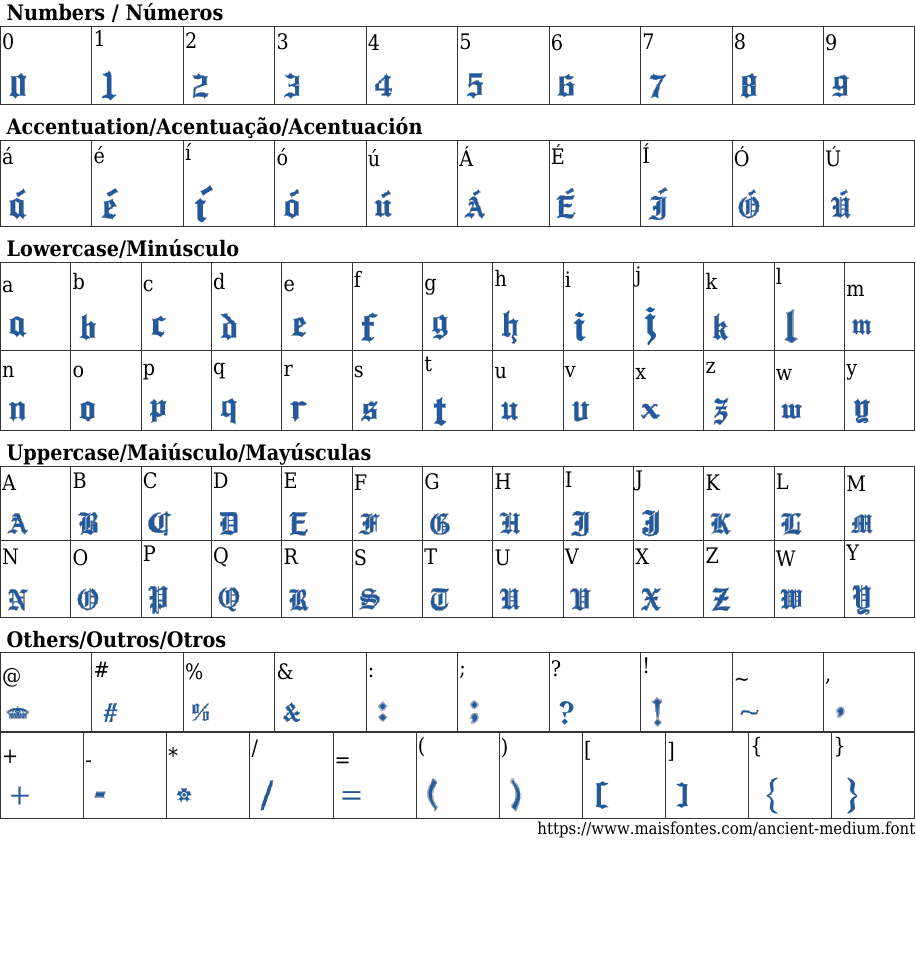
Ancient Medium Font
Ancient Medium Font - We have 22 free ancient, medium, text fonts to offer for direct downloading · 1001 fonts is your. Download and install the ancient medium font for free from ffonts.net. The original font is called cloister black. Perfect for giving your projects a touch of. Dive into the past with our free ancient, medium fonts. Ancient medium is a medium gothic, medieval font designed by jorge. Please buy the font to the original.
We have 22 free ancient, medium, text fonts to offer for direct downloading · 1001 fonts is your. Download and install the ancient medium font for free from ffonts.net. Perfect for giving your projects a touch of. Ancient medium is a medium gothic, medieval font designed by jorge. The original font is called cloister black. Please buy the font to the original. Dive into the past with our free ancient, medium fonts.
The original font is called cloister black. Download and install the ancient medium font for free from ffonts.net. Dive into the past with our free ancient, medium fonts. Ancient medium is a medium gothic, medieval font designed by jorge. We have 22 free ancient, medium, text fonts to offer for direct downloading · 1001 fonts is your. Perfect for giving your projects a touch of. Please buy the font to the original.
Ancient Medium free Font What Font Is
Download and install the ancient medium font for free from ffonts.net. We have 22 free ancient, medium, text fonts to offer for direct downloading · 1001 fonts is your. Perfect for giving your projects a touch of. Dive into the past with our free ancient, medium fonts. The original font is called cloister black.
Medium Font Font Canyon
Perfect for giving your projects a touch of. Dive into the past with our free ancient, medium fonts. Download and install the ancient medium font for free from ffonts.net. Please buy the font to the original. Ancient medium is a medium gothic, medieval font designed by jorge.
Download and install the ancient medium font for free from ffonts.net. Ancient medium is a medium gothic, medieval font designed by jorge. Please buy the font to the original. We have 22 free ancient, medium, text fonts to offer for direct downloading · 1001 fonts is your. Dive into the past with our free ancient, medium fonts.
Ancient Medium free Font What Font Is
The original font is called cloister black. We have 22 free ancient, medium, text fonts to offer for direct downloading · 1001 fonts is your. Dive into the past with our free ancient, medium fonts. Ancient medium is a medium gothic, medieval font designed by jorge. Perfect for giving your projects a touch of.
Ancient Medium font
Perfect for giving your projects a touch of. We have 22 free ancient, medium, text fonts to offer for direct downloading · 1001 fonts is your. The original font is called cloister black. Ancient medium is a medium gothic, medieval font designed by jorge. Dive into the past with our free ancient, medium fonts.
Ancient Medium Font Lettering alphabet, Lettering fonts, Writing fonts
We have 22 free ancient, medium, text fonts to offer for direct downloading · 1001 fonts is your. Ancient medium is a medium gothic, medieval font designed by jorge. Please buy the font to the original. Dive into the past with our free ancient, medium fonts. The original font is called cloister black.
Ancient Medium Free Font Download MaisFontes
We have 22 free ancient, medium, text fonts to offer for direct downloading · 1001 fonts is your. Please buy the font to the original. The original font is called cloister black. Dive into the past with our free ancient, medium fonts. Ancient medium is a medium gothic, medieval font designed by jorge.
Ancient Modern Tales font by Chequered Ink FontRiver
Download and install the ancient medium font for free from ffonts.net. Perfect for giving your projects a touch of. The original font is called cloister black. We have 22 free ancient, medium, text fonts to offer for direct downloading · 1001 fonts is your. Dive into the past with our free ancient, medium fonts.
Ancient Medium font
The original font is called cloister black. Dive into the past with our free ancient, medium fonts. Ancient medium is a medium gothic, medieval font designed by jorge. Please buy the font to the original. Download and install the ancient medium font for free from ffonts.net.
Ancient Medium free Font What Font Is
Please buy the font to the original. We have 22 free ancient, medium, text fonts to offer for direct downloading · 1001 fonts is your. Ancient medium is a medium gothic, medieval font designed by jorge. Download and install the ancient medium font for free from ffonts.net. The original font is called cloister black.
Ancient Medium Is A Medium Gothic, Medieval Font Designed By Jorge.
Dive Into The Past With Our Free Ancient, Medium Fonts.
The original font is called cloister black.